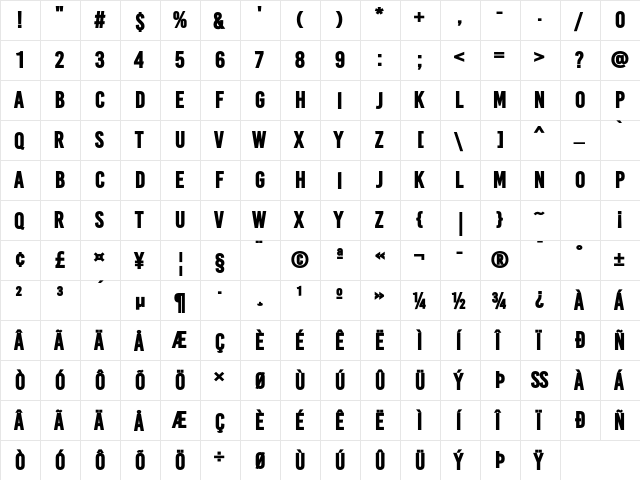
BaseOne Regular
| Foundry | Design by Basse |
| Designer | Domenico Catapano |
Design Context for BaseOne Typeface
BaseOne offers clean, dependable letterforms without strong stylistic allegiance, making it a practical choice for designers who need flexibility.
Pro Tip: Use BaseOne in both headline and body roles to test its range before committing to a single application.